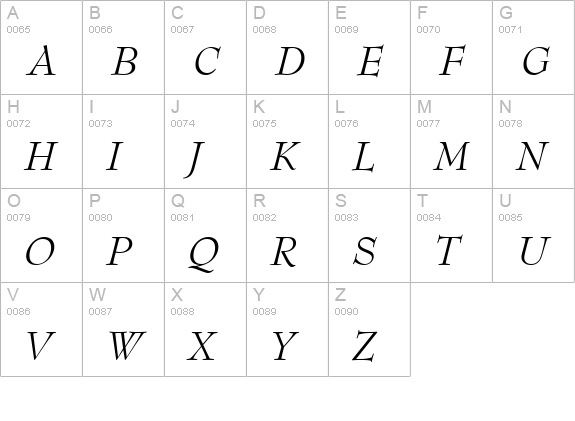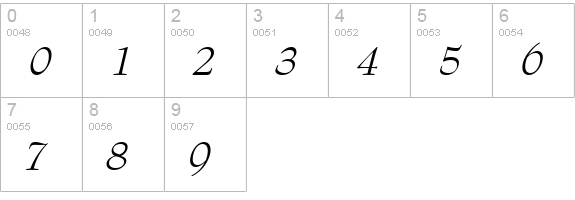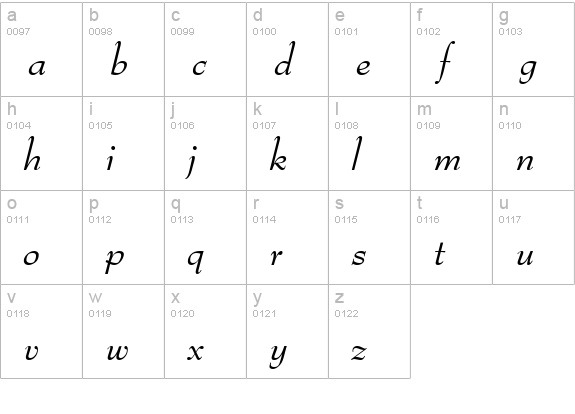
Monitor SSi Italic is a distinctive, italic variant in the Monitor typeface family \xE2\x80\x94 well suited to design and typography projects.
Monitor SSi Italic font is a sleek and modern typeface designed to add a touch of elegance to your projects. With its stylish slanted design, this font exudes sophistication and professionalism. The italicized characters give a dynamic and engaging appearance to any text, making it perfect for headings, titles, and creative designs. The best part about Monitor SSi Italic font is that it is available for free download at FontsMarket.com. This means you can easily access and use this beautiful font in your personal and commercial projects without any cost. Whether you're working on a website, a poster, a presentation, or any other design project, this font will elevate your work and make it stand out. Don't miss out on the opportunity to enhance your designs with the elegance and flair of Monitor SSi Italic font. Download it for free today at FontsMarket.com and take your projects to the next level!